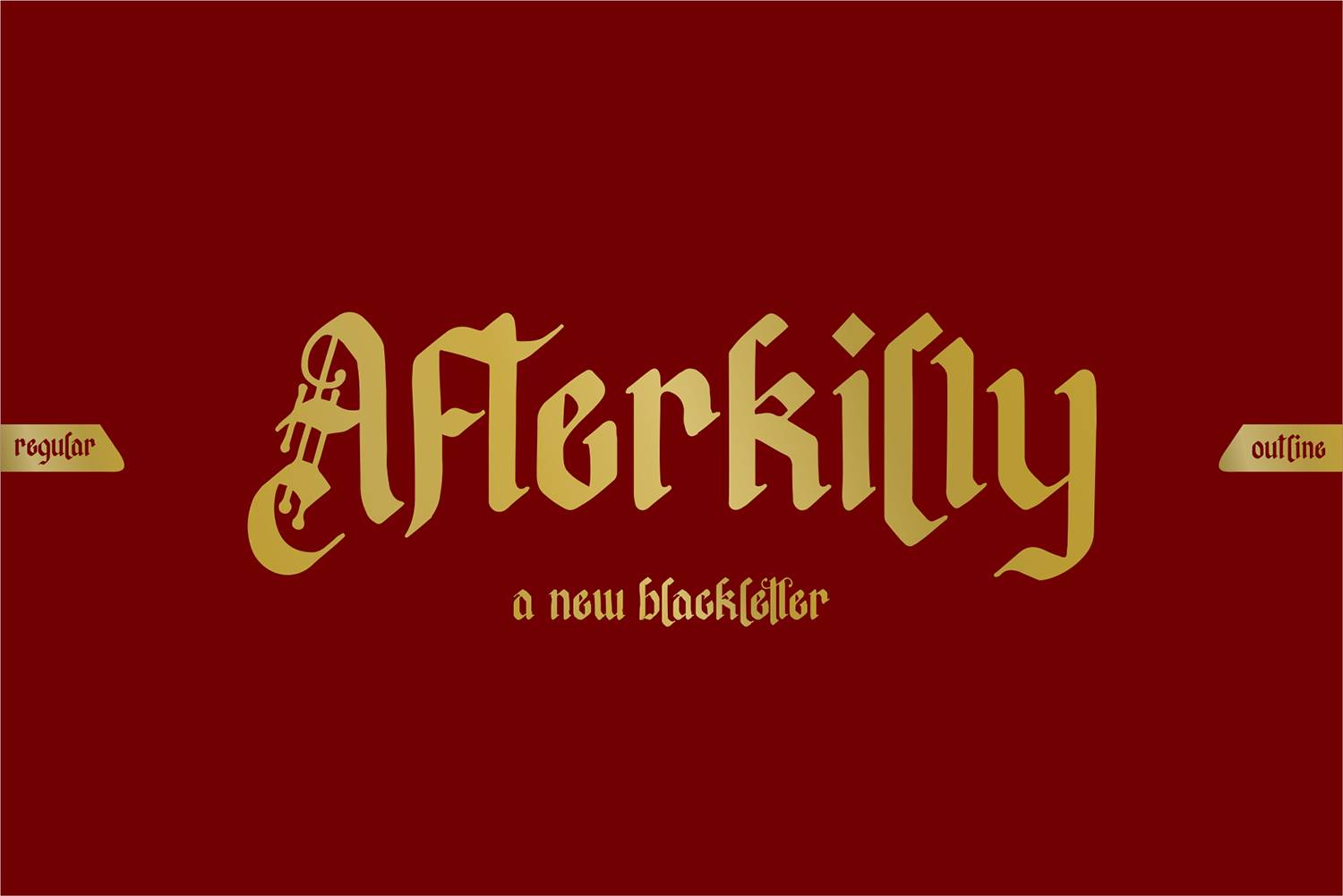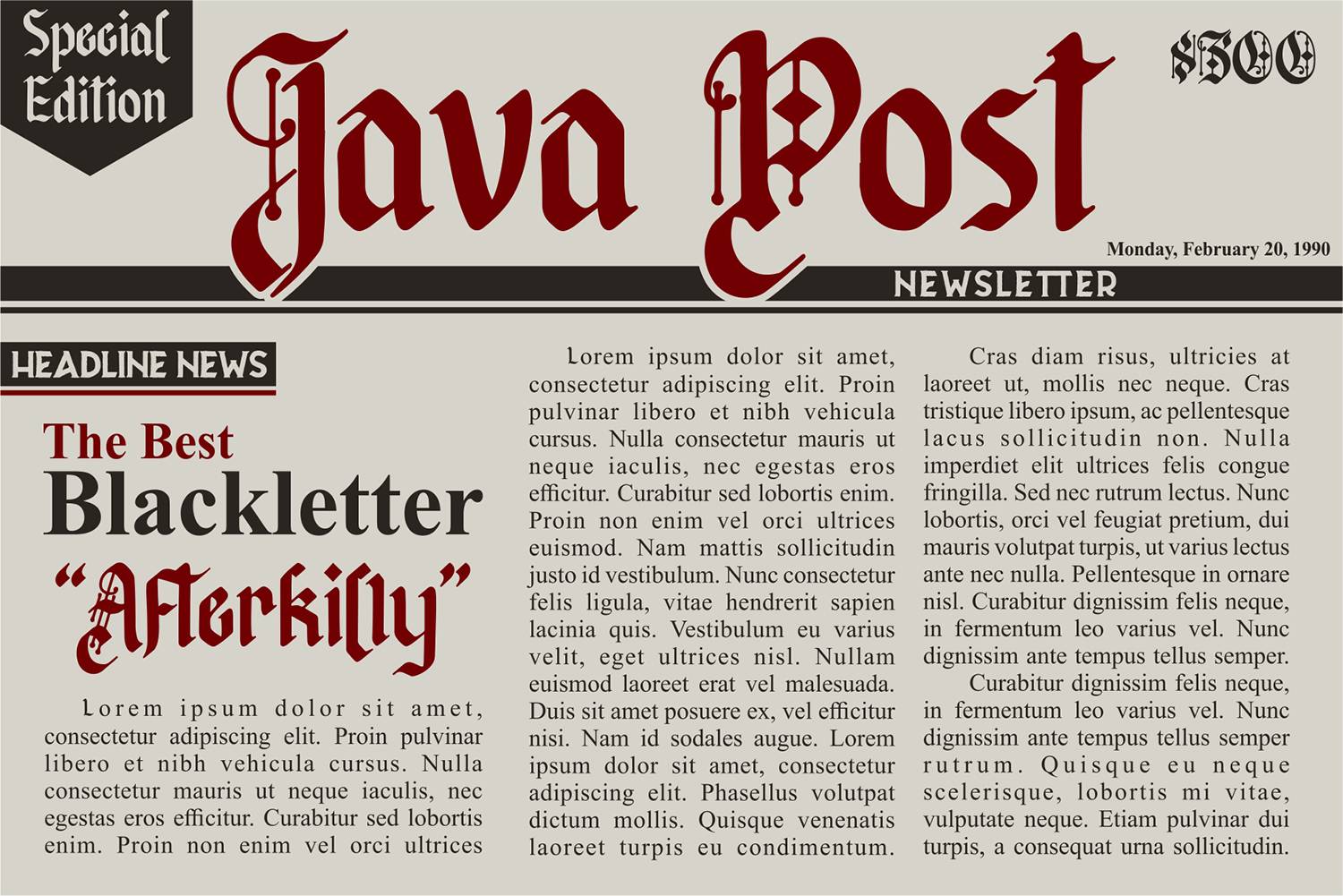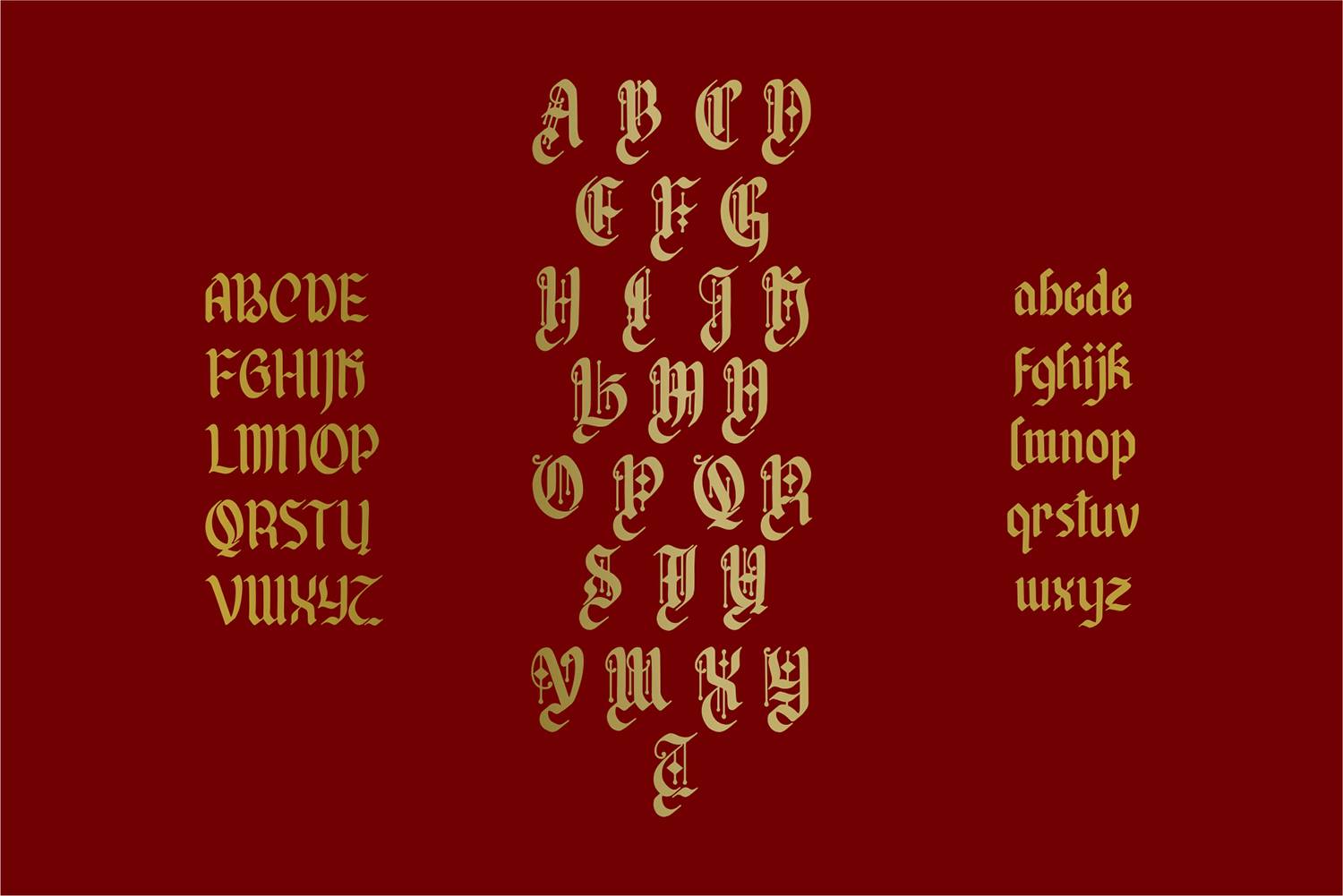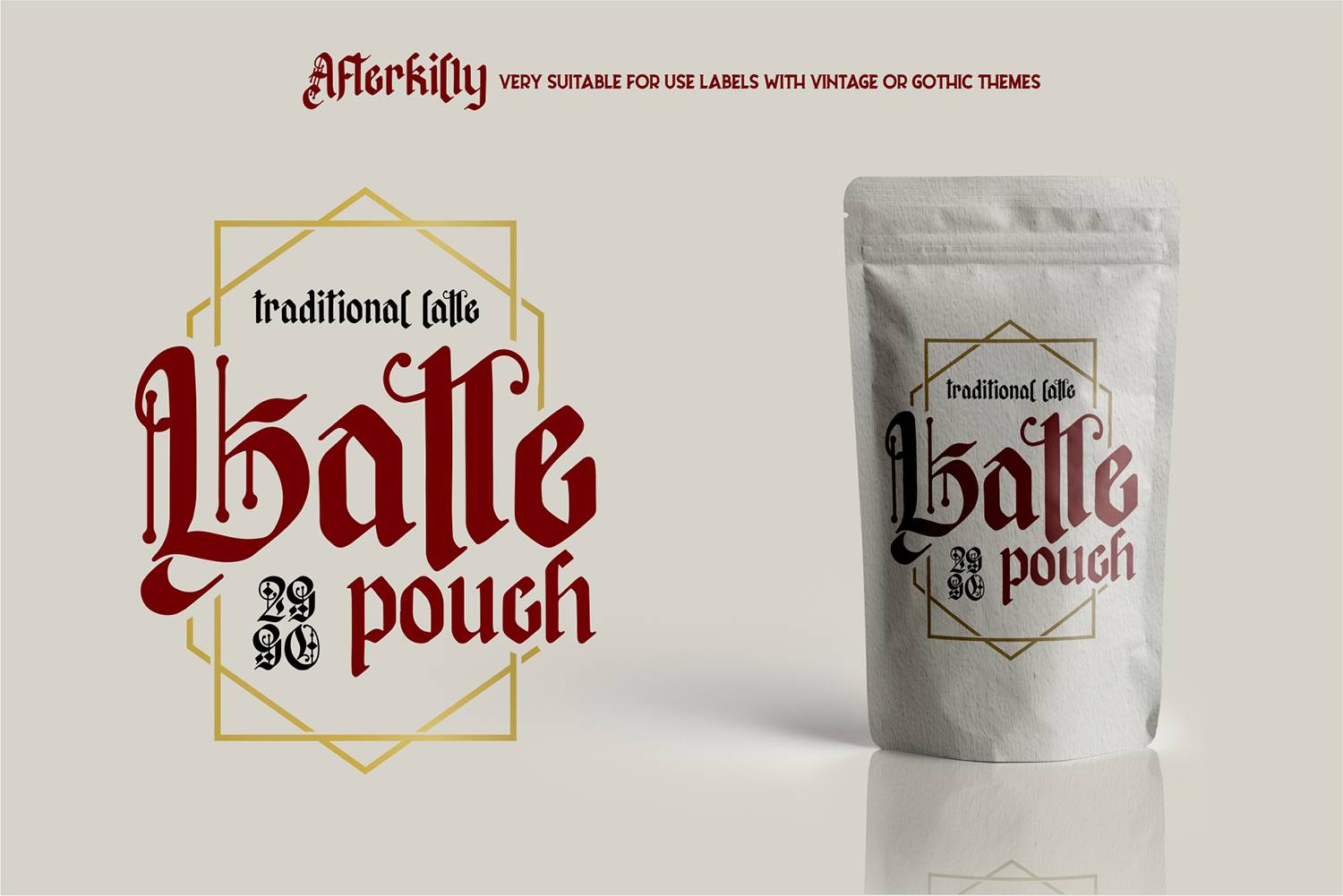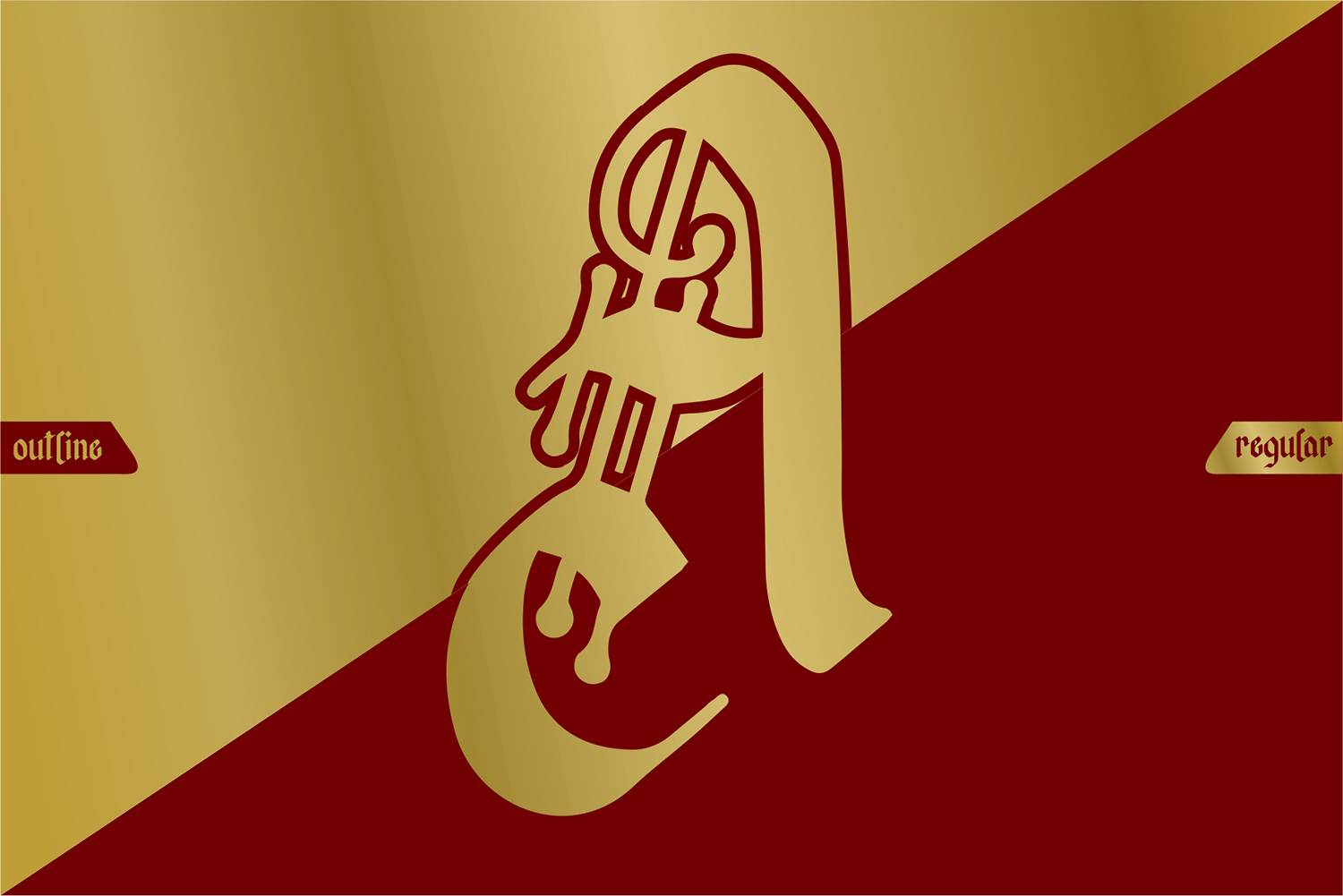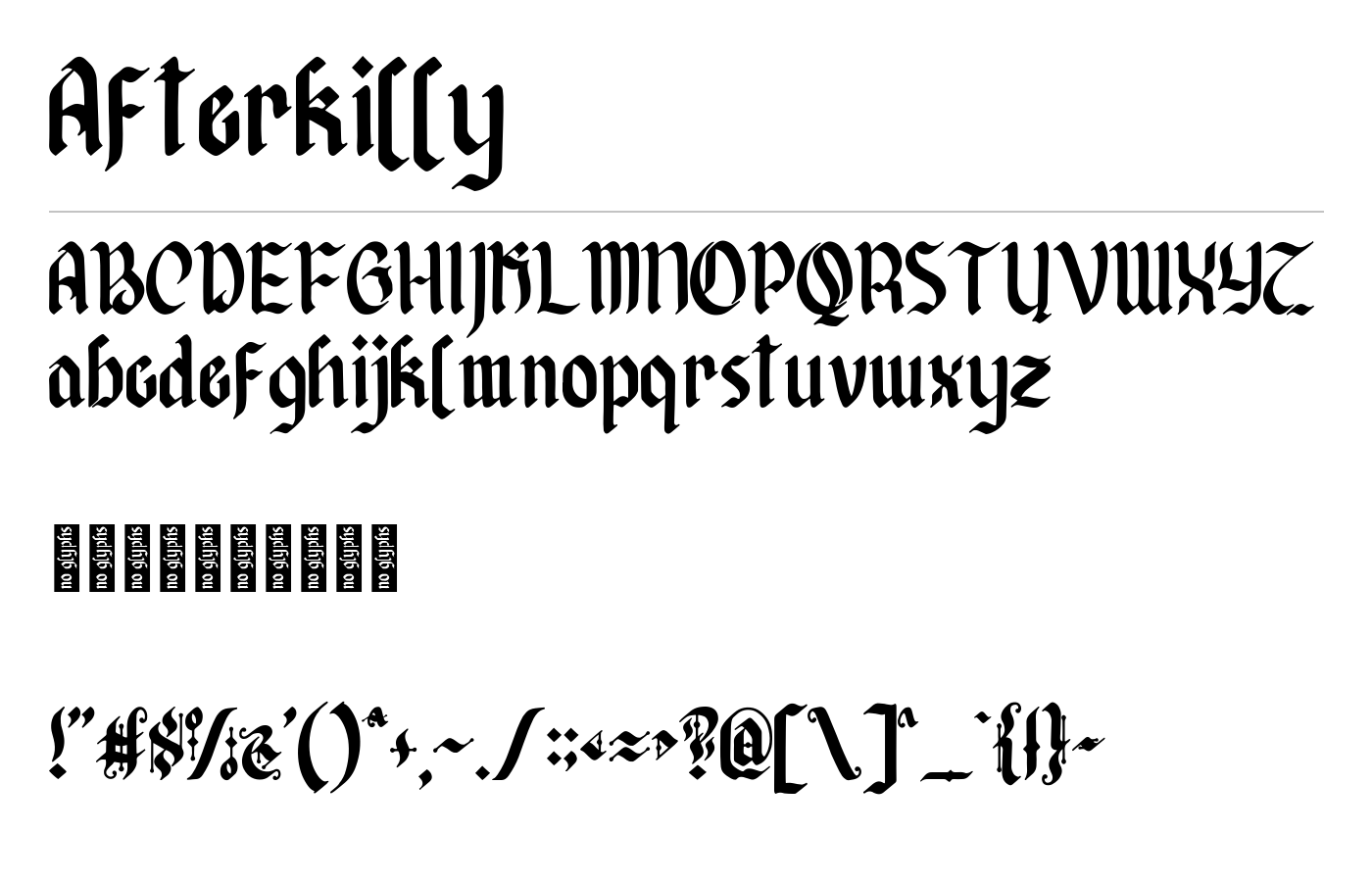
Afterkilly Blackletter is a bold and dramatic serif font that draws inspiration from traditional Gothic calligraphy with sharp, angular strokes and dense letterforms. Its high contrast between thick and thin lines and elaborate details make it ideal for creating a vintage or medieval aesthetic, suited for striking headlines, logos, and branding that seek a strong, classic, and historic character. This font works best where a unique, authoritative style is desired, such as in editorial design, event posters, or fashion branding that embraces a timeless, ornate atmosphere.
Afterkilly Blackletter Font
About Afterkilly Blackletter Font